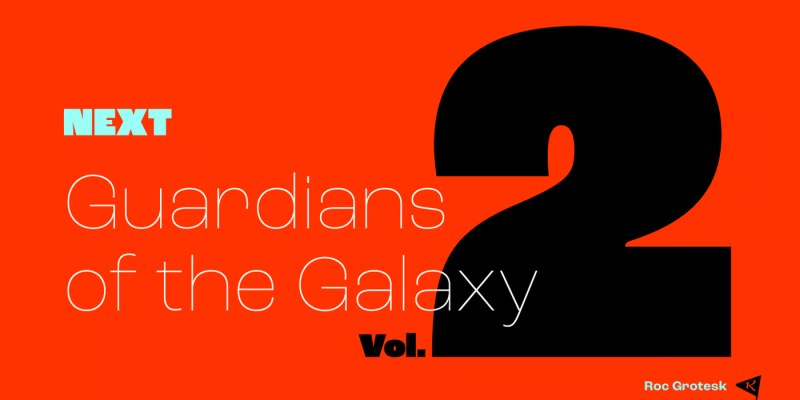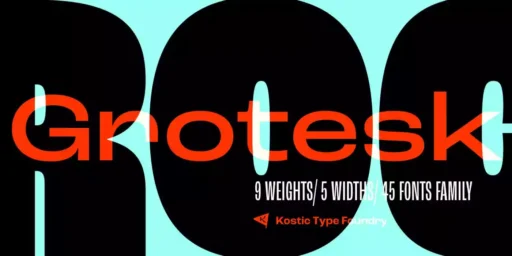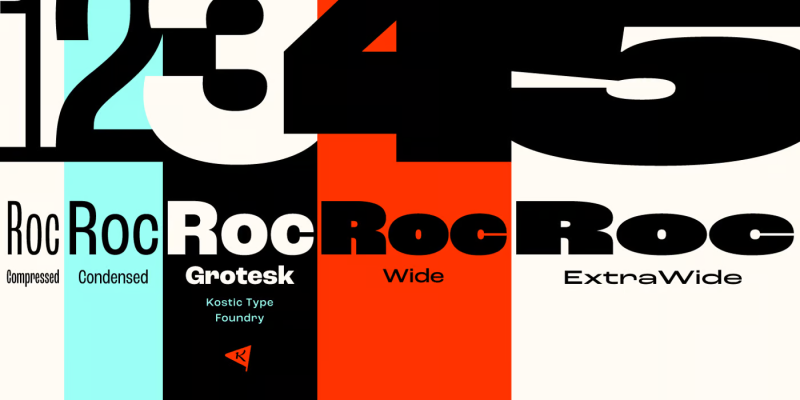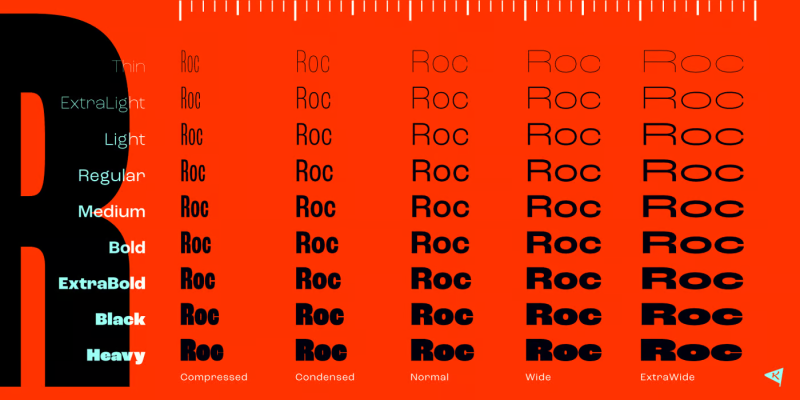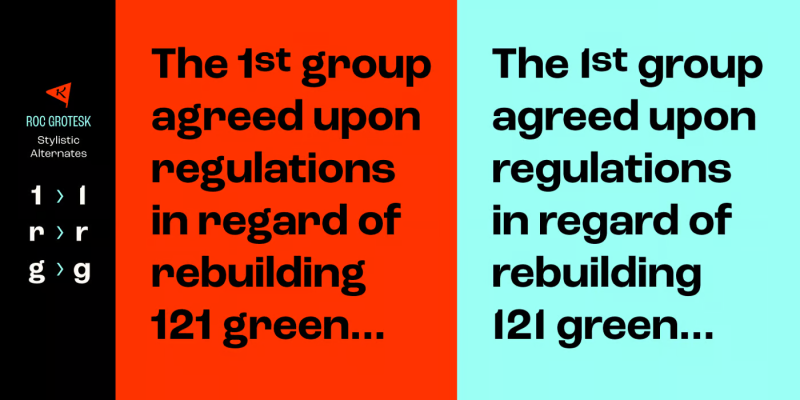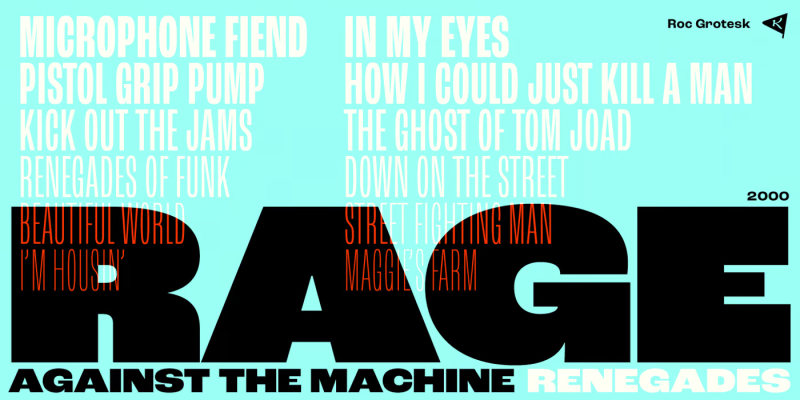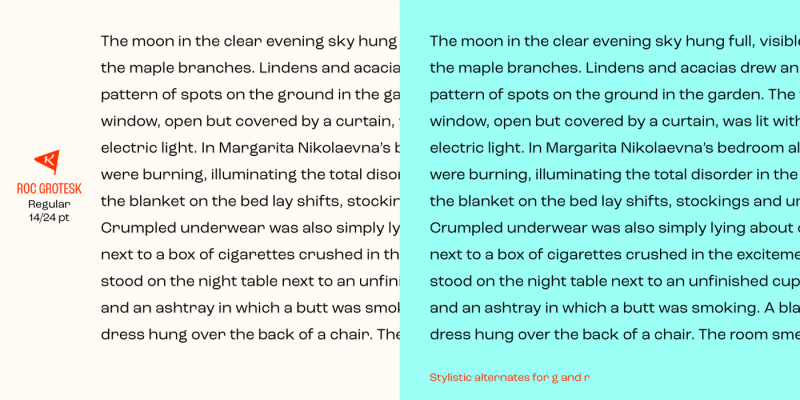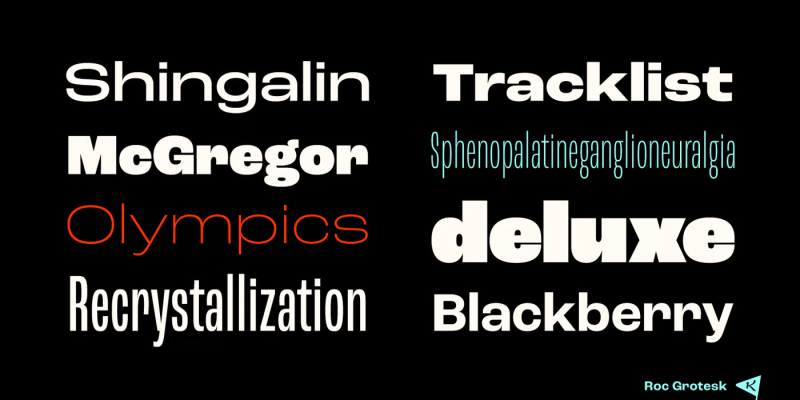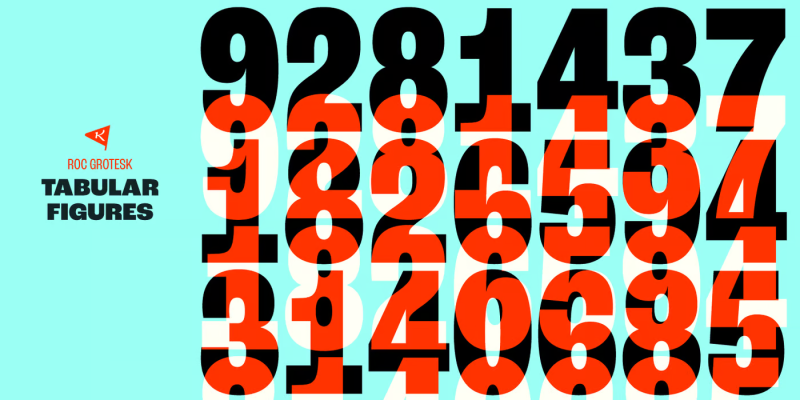
Roc Grotesk Font
Roc Grotesk is a modern sans serif font family that was influenced by the American wooden types designed in the last quarter of the 19th century. This typeface family provides many styles and features that are suitable for any print and digital media productions.
Nikola Kostić designed this typeface, released by the Kostic Type Foundry in 2019 under the name Roc Grotesk. It takes it’s inspiration from American wood types of the late 1800s and standard grotesques such as Franklin Gothic and News Gothic. Kostic envisioned these to be a modern evolution of historical grotesque typefaces, combining the aesthetics of today’s design with the practicalities of the historical ones.
It is also important to note that the design of the Roc Grotesk is more utilitarian than decorative. Both the lightest and the widest are deliberately created for display purposes, although they can still be functional in a certain way.
In the Normal width, horizontal spacing is consistent across all the nine weights, on the other hand, the Compressed width aims at saving space by using minimal horizontal space. This design decision contributes to the contrast between Compressed Thin and Compressed Heavy styles since it is intentional.
From Thin to Heavy, the stroke contrast increases, enhanced by the heavier weights, especially the uppercase E and R in the Black and Heavy styles.
The x-height of the Roc Grotesk is quite high and it also has relatively short descenders and ascenders as compared to other fonts. These features play a part in the readability and spacing of the typeface, maintaining that all capital letters are set to a certain height, which allows for dense setting of all caps texts in headlines and posters.
It has a somewhat larger character spacing for the purpose of setting large blocks of text, while the Bold version, although having a greater weight, comes in the package to keep the same width as the text set in the Regular style. This helps to maintain the visual continuity when switching between the weights.
Since tabular figures are available in both Regular and Bold styles, the two types of figures have the same width, which enables the author to highlight certain rows of numbers within a given data column while maintaining the appearance of the data. This way, OpenType features allow using alternative lowercase ‘g’ and ‘r’ shapes, which corresponds to the designer’s expectations regarding more traditional Grotesk typefaces.
Roc Grotesk is a well-crafted font family providing 45 fonts, with five widths and nine weights to choose from. This vast category comes with five styles: Compressed, Condensed, Normal, Wide and Extra Wide so that designers can have a wide choice.
The language support is also excellent, with the typeface supporting Western and Central European character sets, as well as Turkish. This universal Latin character set means that Roc Grotesk is suitable for use in many international projects.
Roc Grotesk font has a variety of weights and widths due to this it is suitable for a broad range of purposes. It is perfect for headlines and text, and looks great in print and online, so it is suitable for posters, magazine layouts, ads, logos, and websites.
The font is very simple, and has a more contemporary appeal to it, which can work well in both corporate, technology, and other creative contexts. Thus, Roc Grotesk has elements of both the past and the present that makes it useful in the current and future works without compromising on aesthetics.
Where Roc Grotesk Font works best
Roc Grotesk Font stays legible at small sizes, which makes it a strong choice for navigation, buttons and dashboards in web design and app interfaces.
Clean sans serifs like Roc Grotesk Font are the default language of SaaS, fintech and product branding.